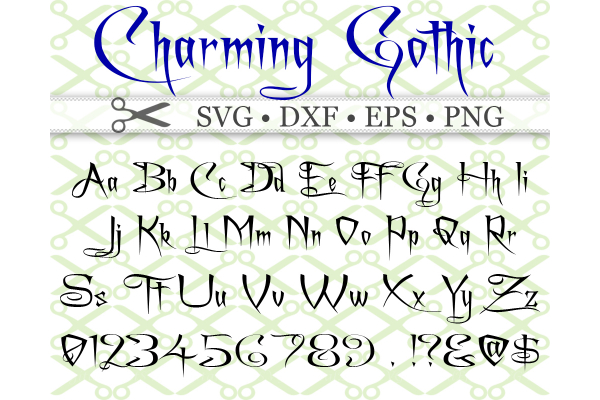
CHARMING SVG FONT, Gothic Font, In File Formats SVG, DXF, EPS & PNG. Upper case letters & numbers & characters as shown in ad picture. A perfect Halloween Font!!